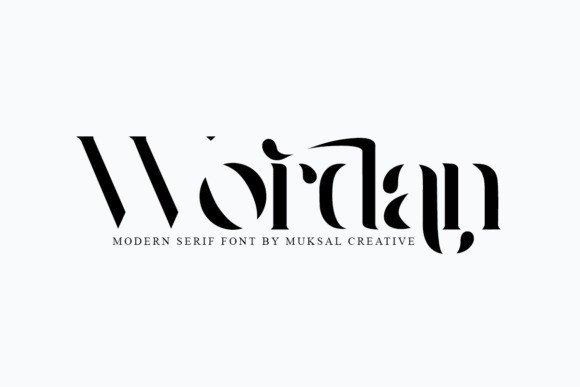
Wordan Font
Introducing Wordan Serif Font, an elegant stencyl typeface meant for headlines, titles & names. Made from font designer named Muksal Creative. It celebrates abstract shapes in all their eclectic beauty.The hard lines with subtle rounded edges gives it a perfect mix of contemporary typography and classic design. Add it to your favorite design ideas and notice how it makes them come alive!